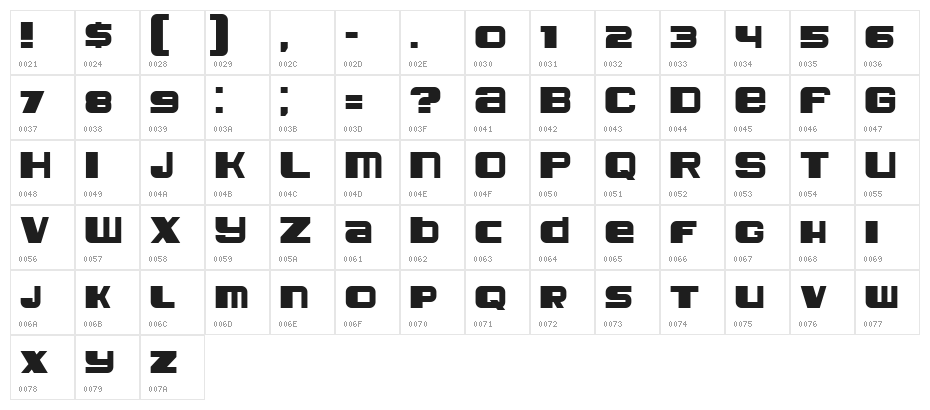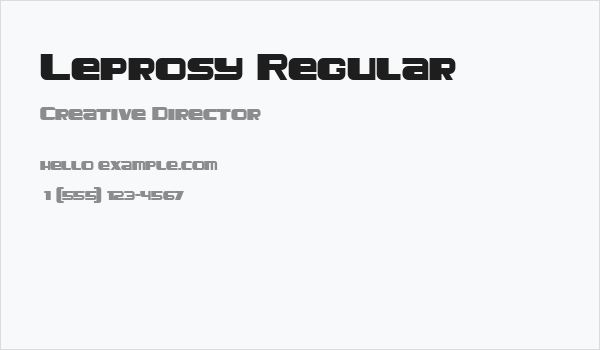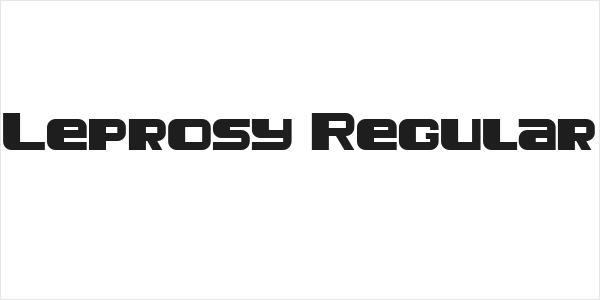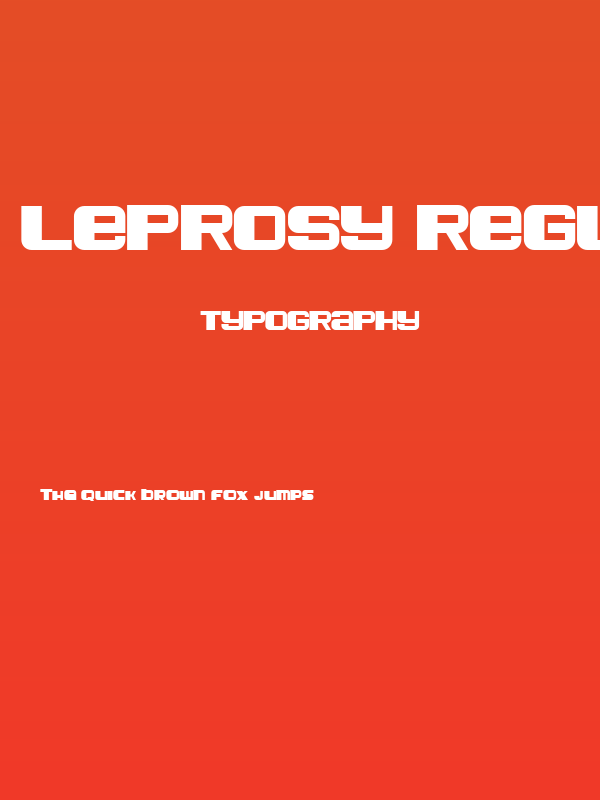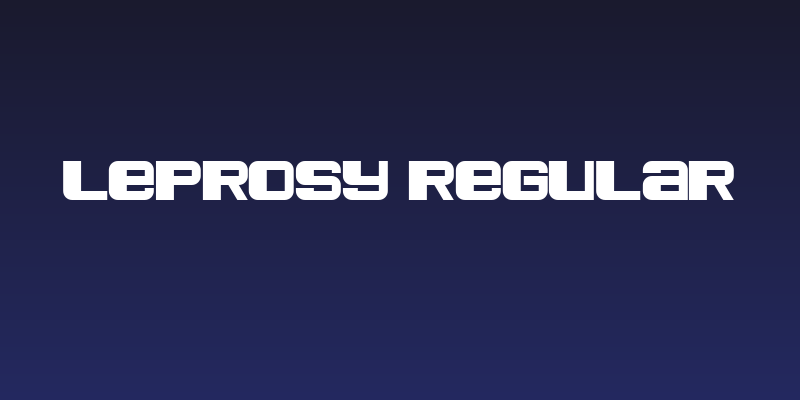
Leprosy Regular Font
Leprosy Regular Description
This font features a bold, geometric design with a modern and futuristic appeal. The characters are constructed with thick, uniform strokes that create a strong visual impact. The uppercase and lowercase letters maintain a consistent style, with rounded edges and a blocky appearance. The numerals and special characters follow the same design principles, ensuring a cohesive look across all glyphs. The font's solid structure and high contrast make it ideal for attention-grabbing designs.
| Proposed Projects | Ideal for branding, posters, headlines, and any design requiring a strong, modern aesthetic. |